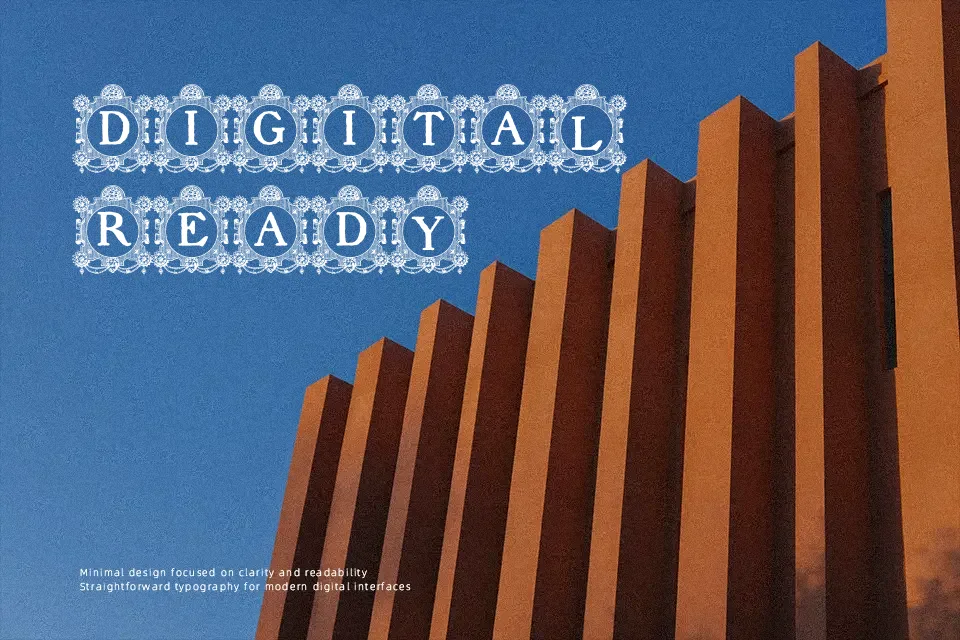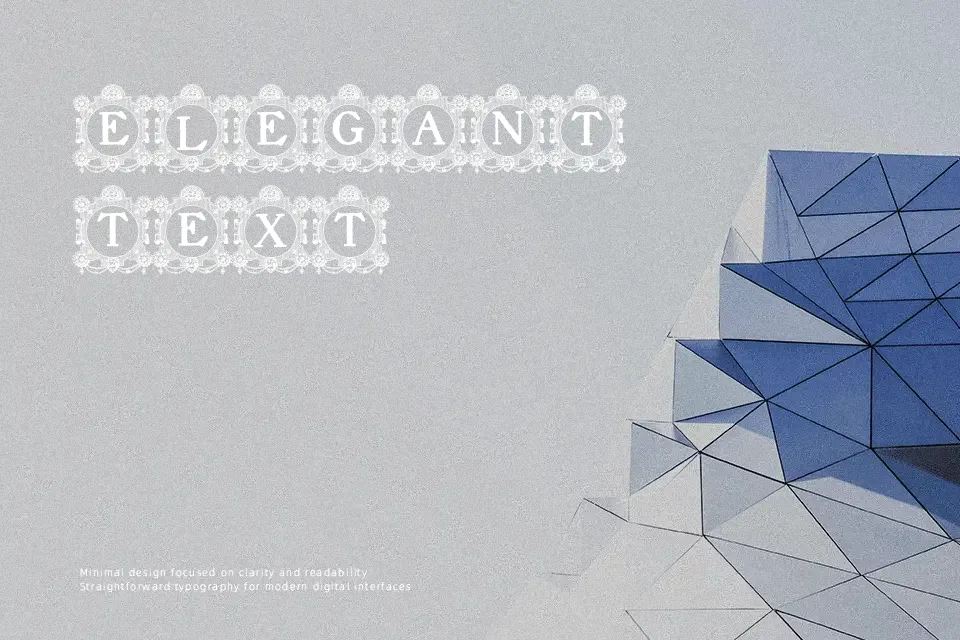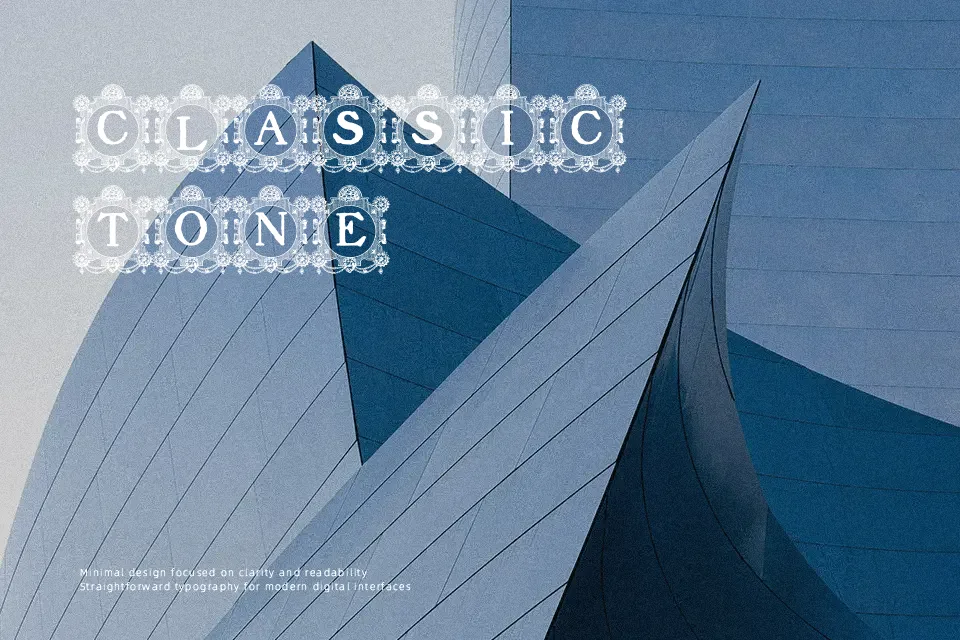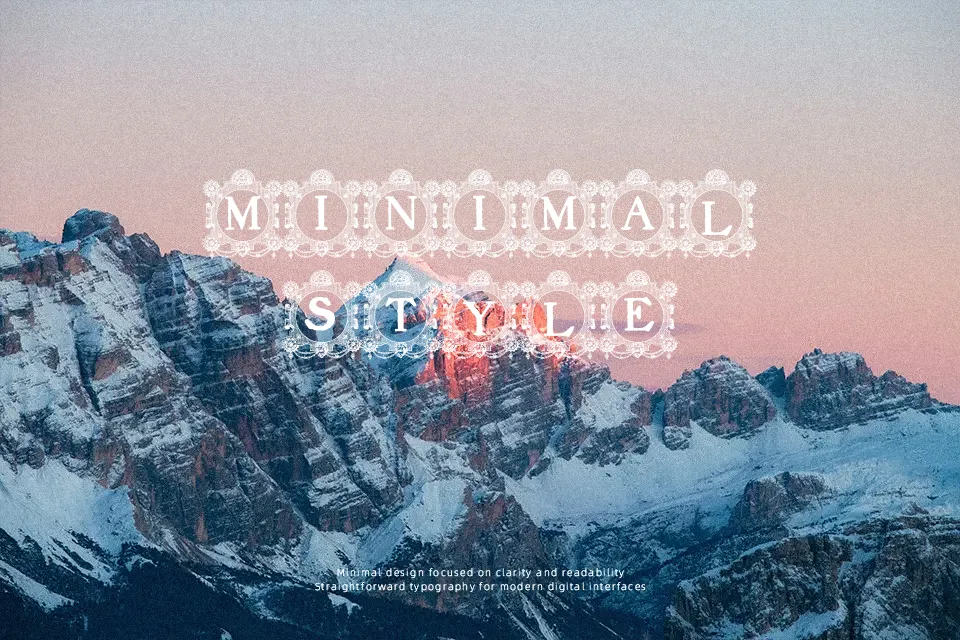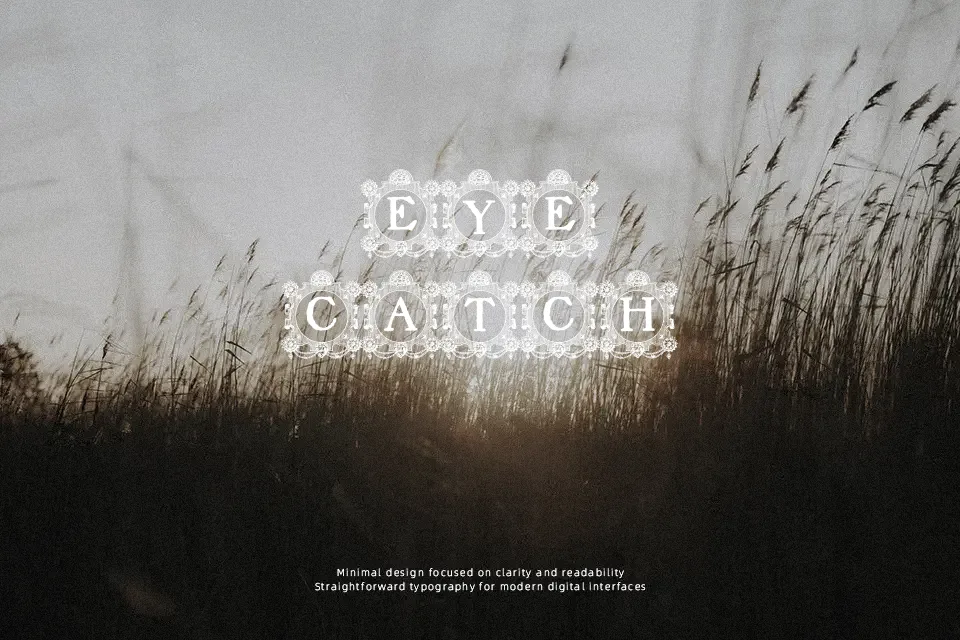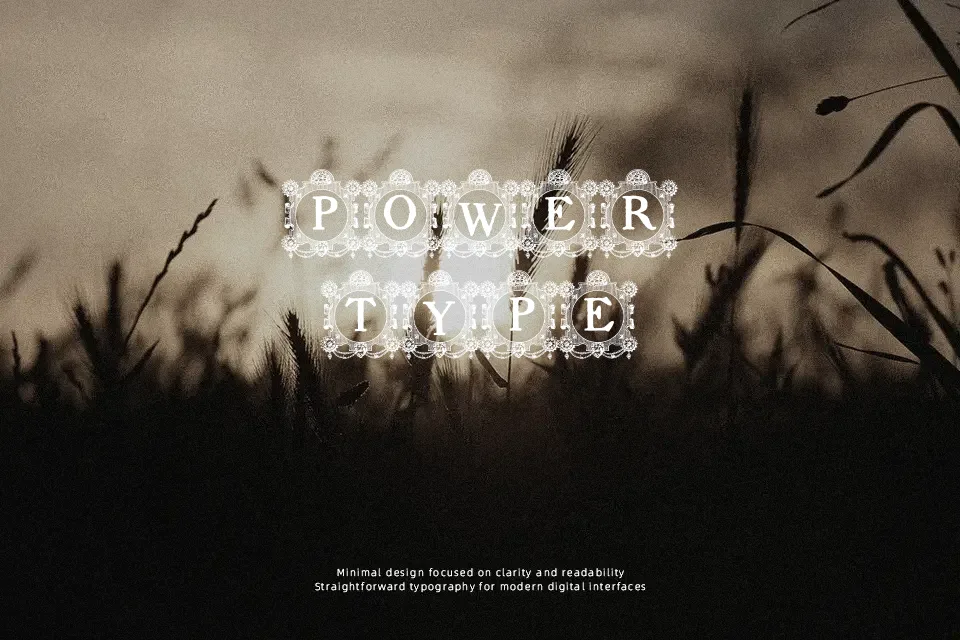
Barocque Capitals Font
Designed by Intellecta Design
Each character in Barocque Capitals arrives enclosed in an elaborate frame — dense with scrollwork, floral flourishes, and baroque-era ornamentation sitting around a bold, high-contrast serif core. The result reads less like a typeface and more like a collection of illustrated initials pulled from a Renaissance manuscript. This makes it a strong fit for decorative book cover headers, event invitations, or luxury label accents where a single letter needs to carry visual weight on its own. That strength, however, is also its ceiling: because each glyph is a standalone decorative illustration, it falls apart at small sizes and becomes visually overwhelming when set in sequence. Use it sparingly — one or two letters as a focal point — rather than attempting full words in running display copy.
Best For:- Decorative drop caps in editorial layouts
– Historical event or exhibition poster headers
– Luxury packaging accent lettering
– Ornate invitation title initials
Not Ideal For:- Running headline text or full words at any size
– Digital UI labels or app interfaces
– Corporate or minimalist branding projects
– Small-scale print where fine frame detail is lost
Perfect for branding, editorial, and invitation, with a classic and decorative style.